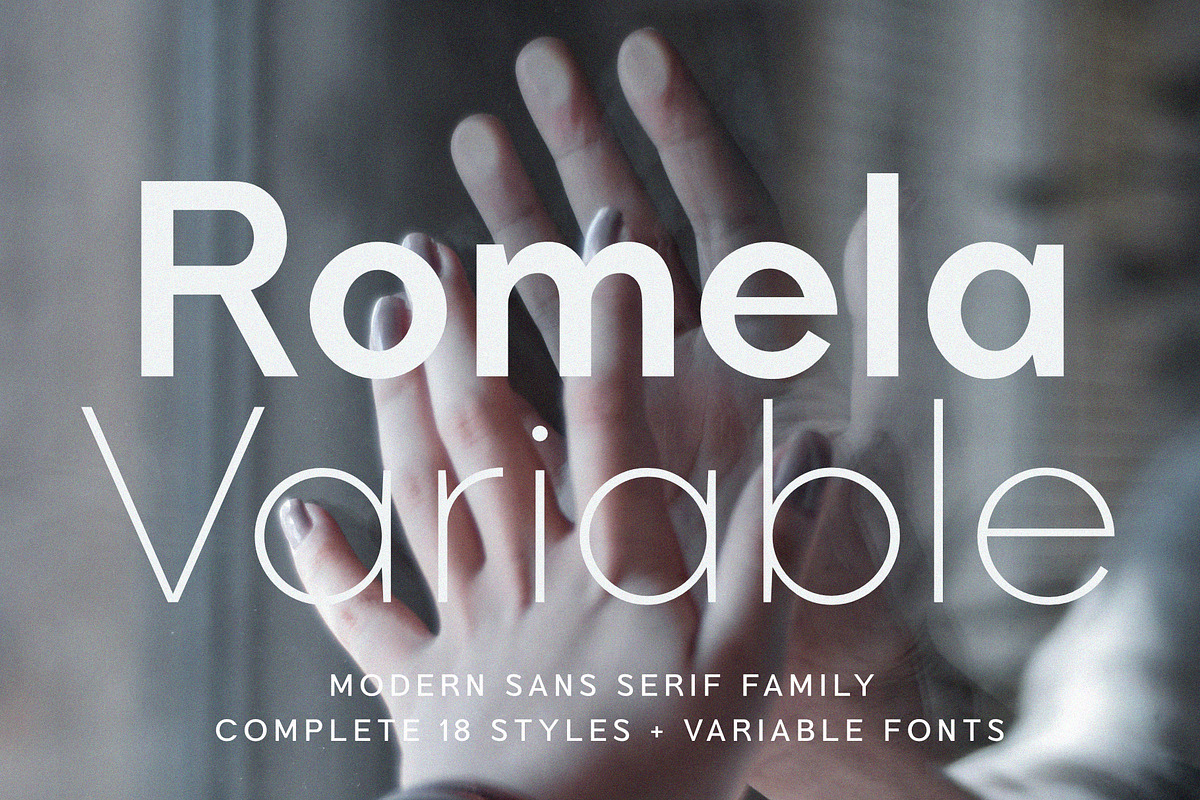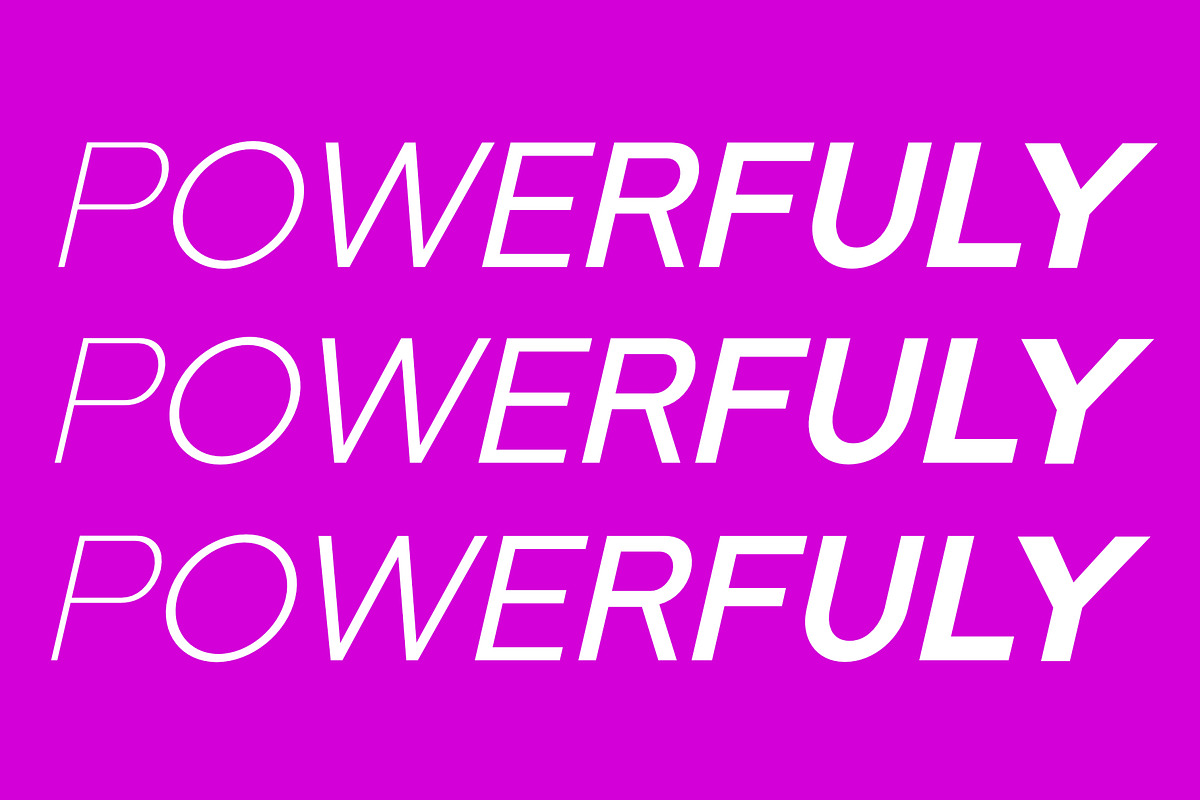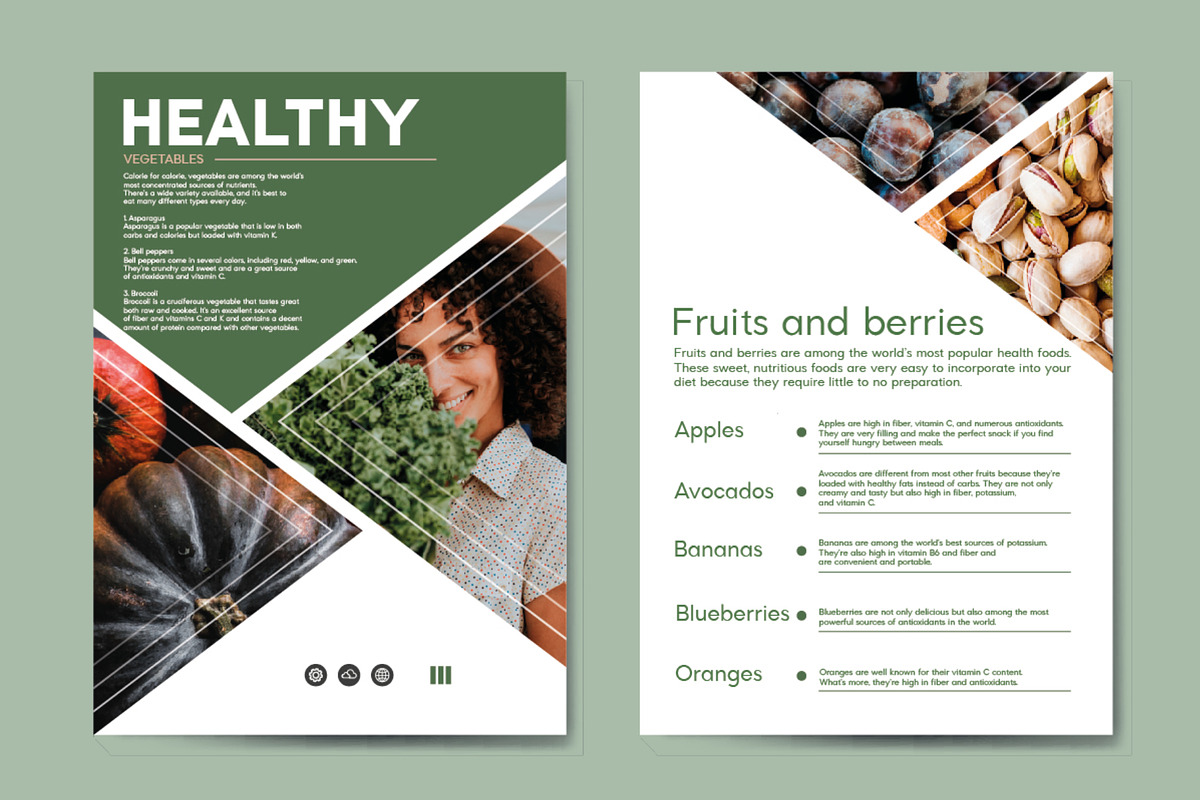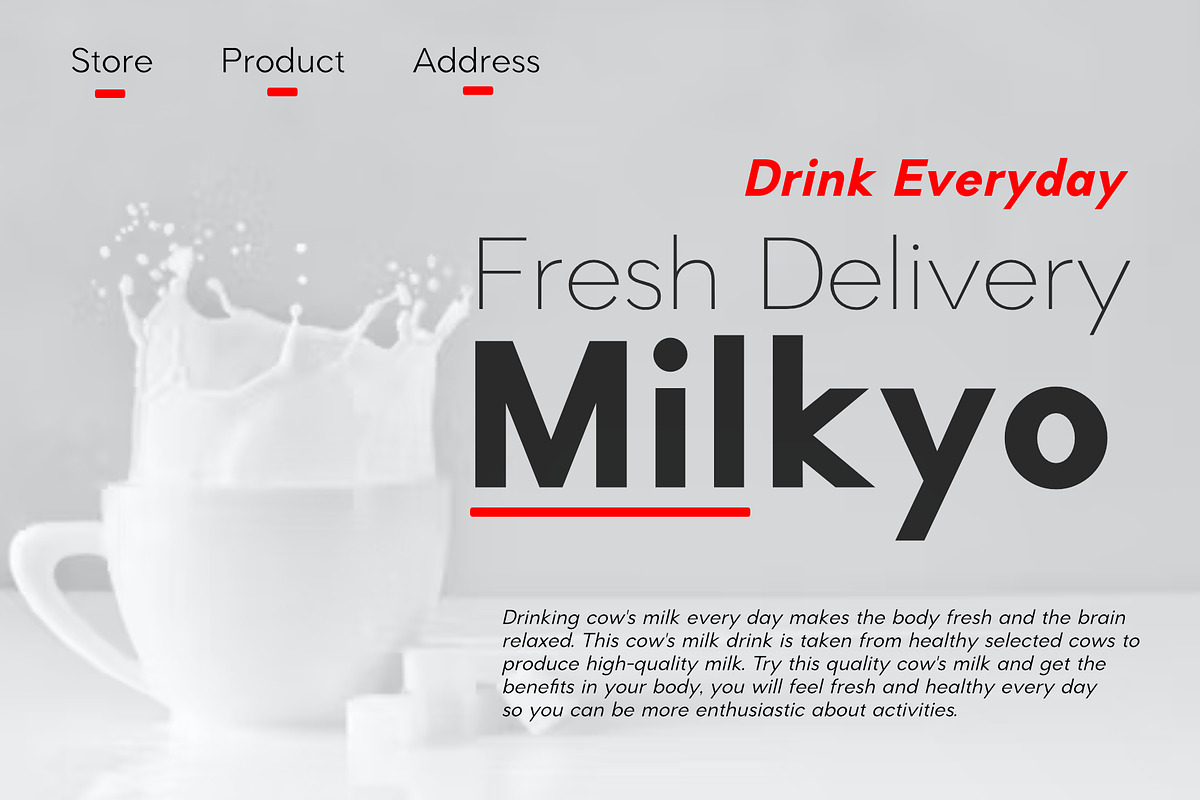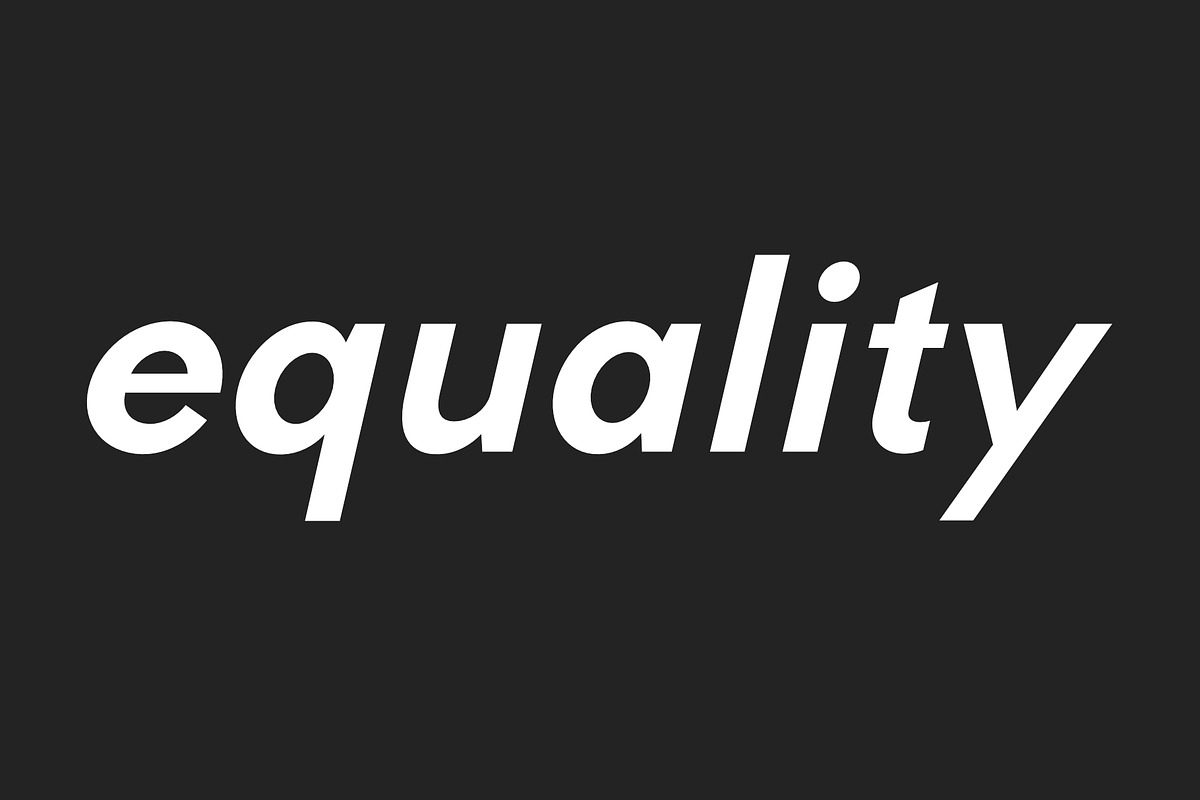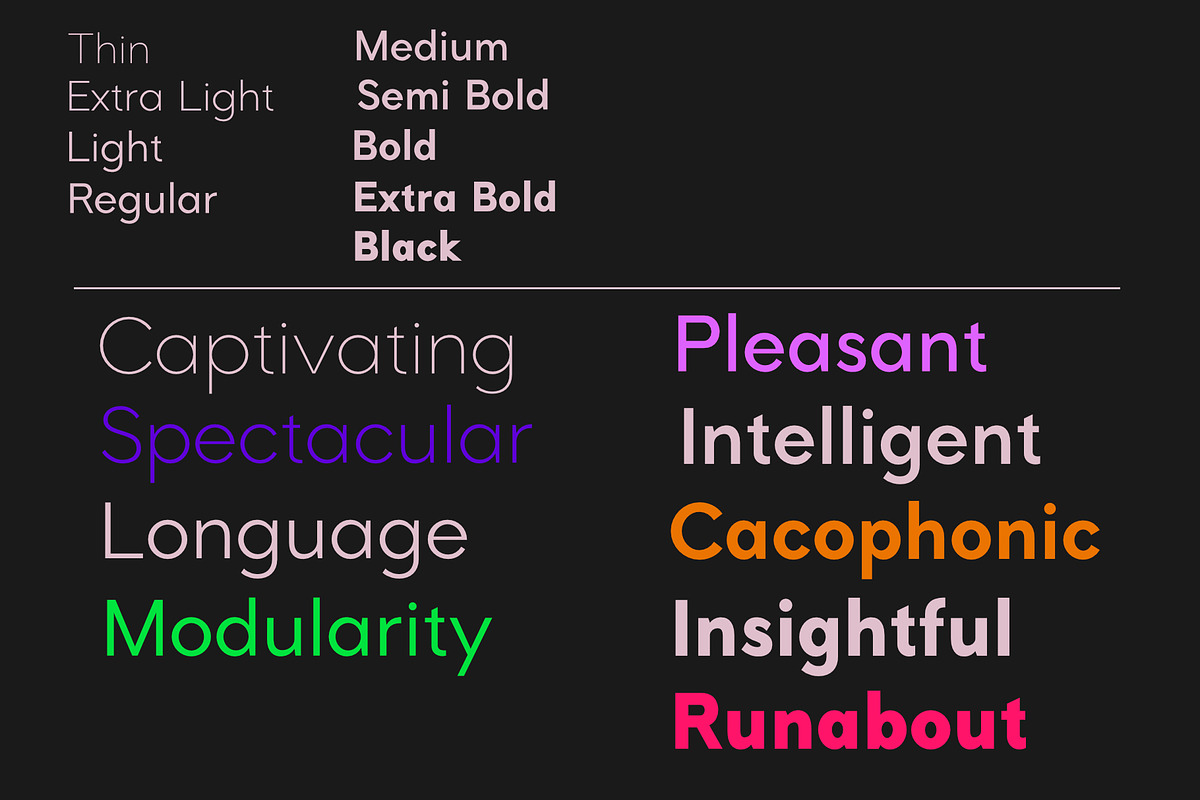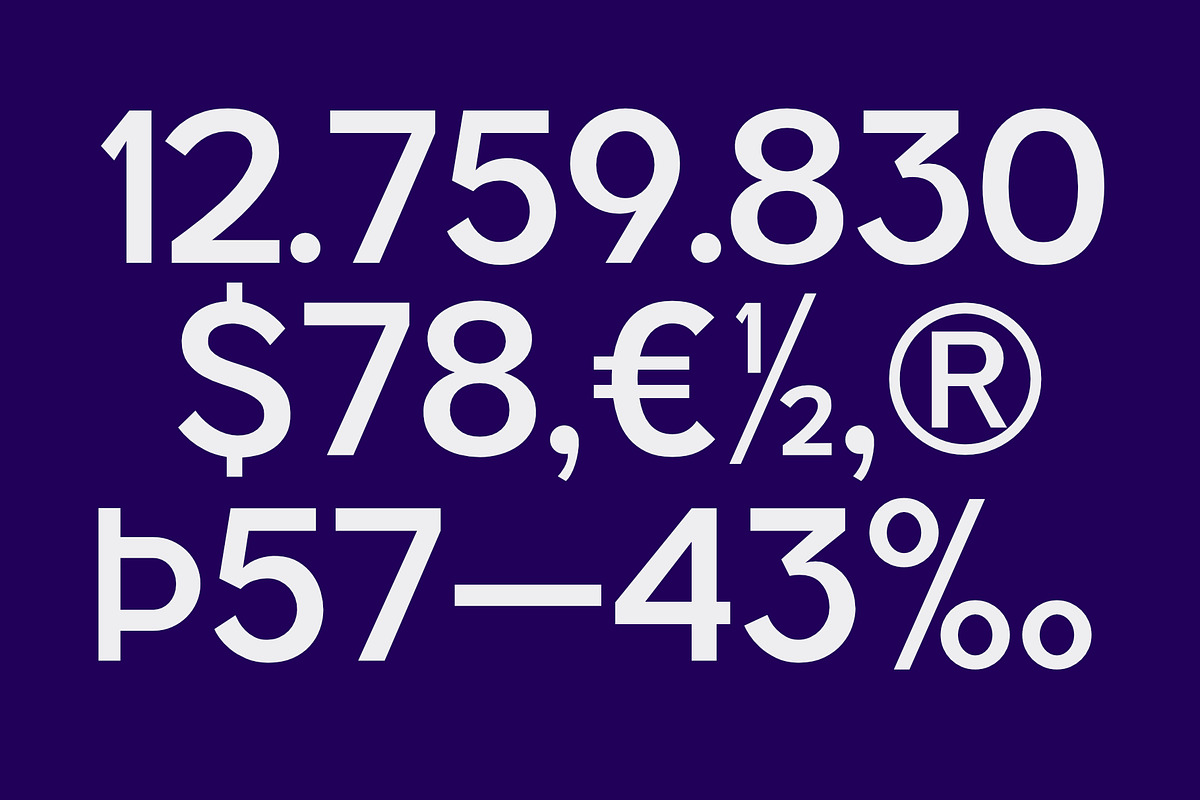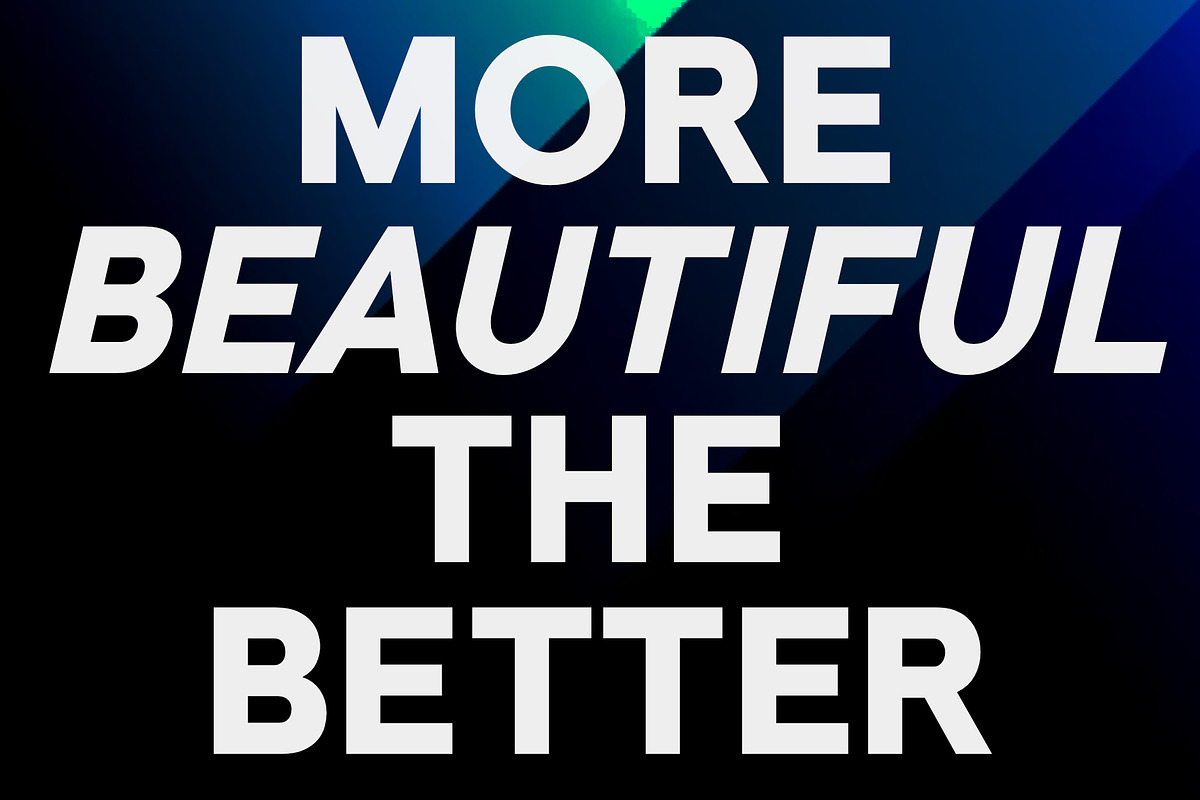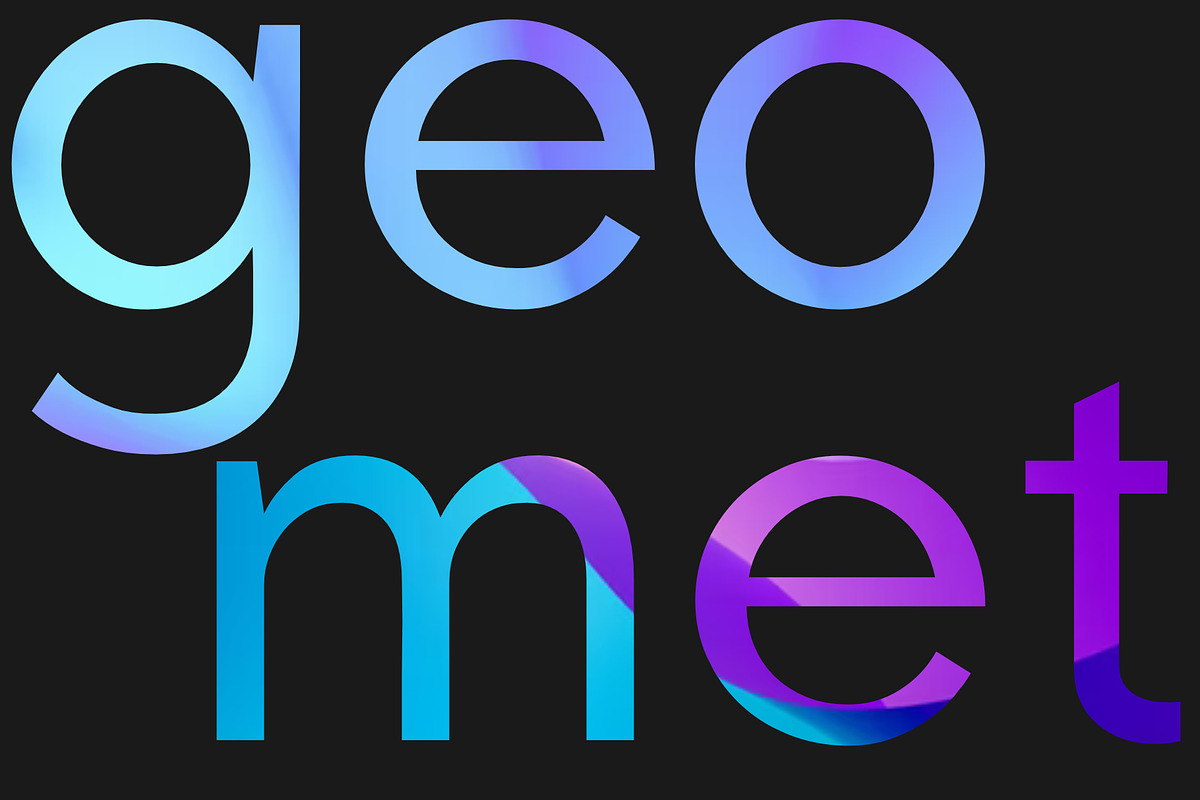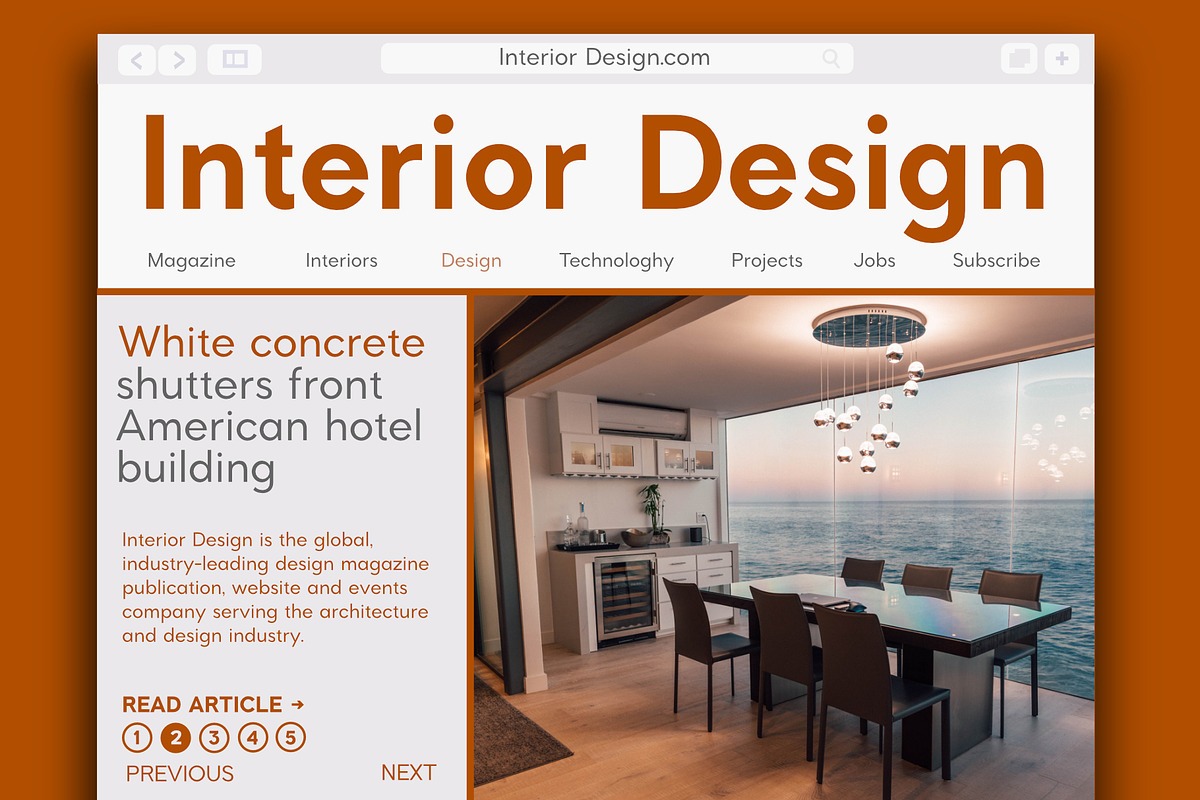
Romela Sans Serif Family
Romela is a geometric sans serif font family. Contains 9 weights from Thin to Heavy with matching slopes. It is a blend of 70s geometric and modern style with a soft touch, minimalistic, elegant, warm, quirky, yet versatile, and easy to read. Romela was created for a satisfying reading experience, compatible with both text and display, and perfect for headers, titles, posters, websites, brands, apps, and a variety of other creative designs or projects.
- Appercase
- Numeral